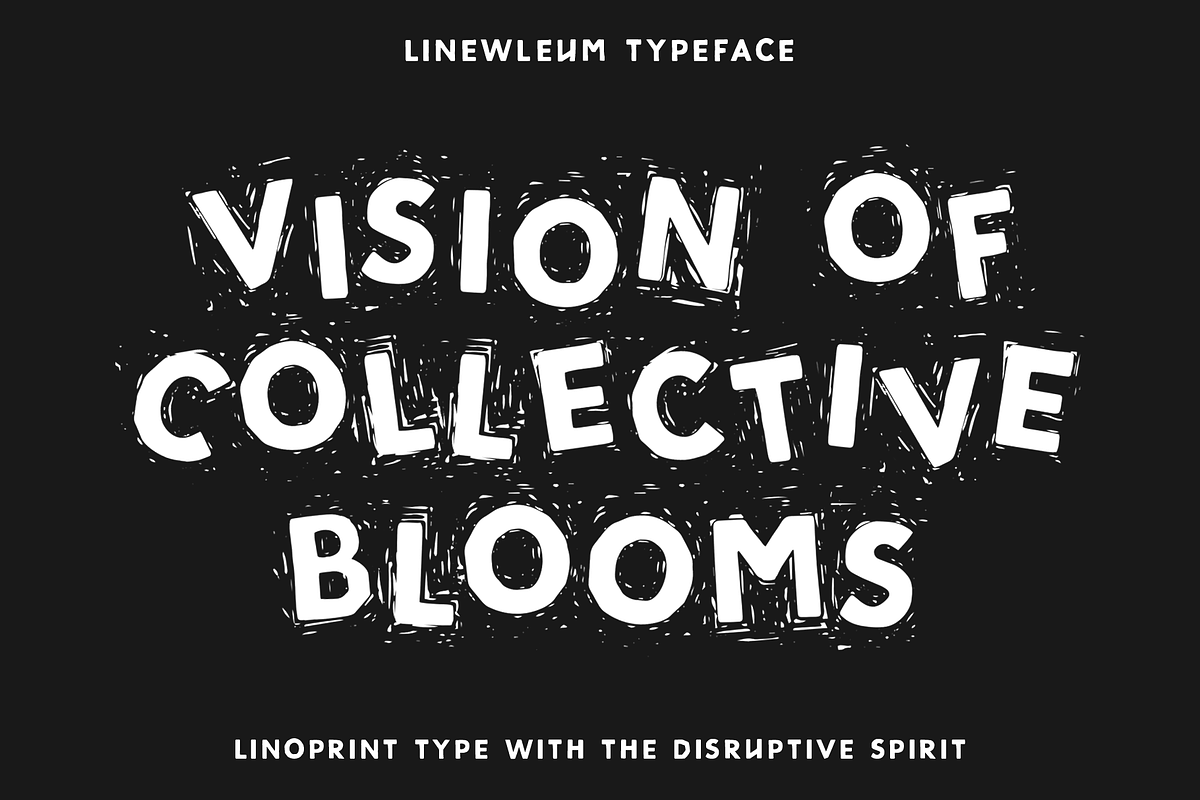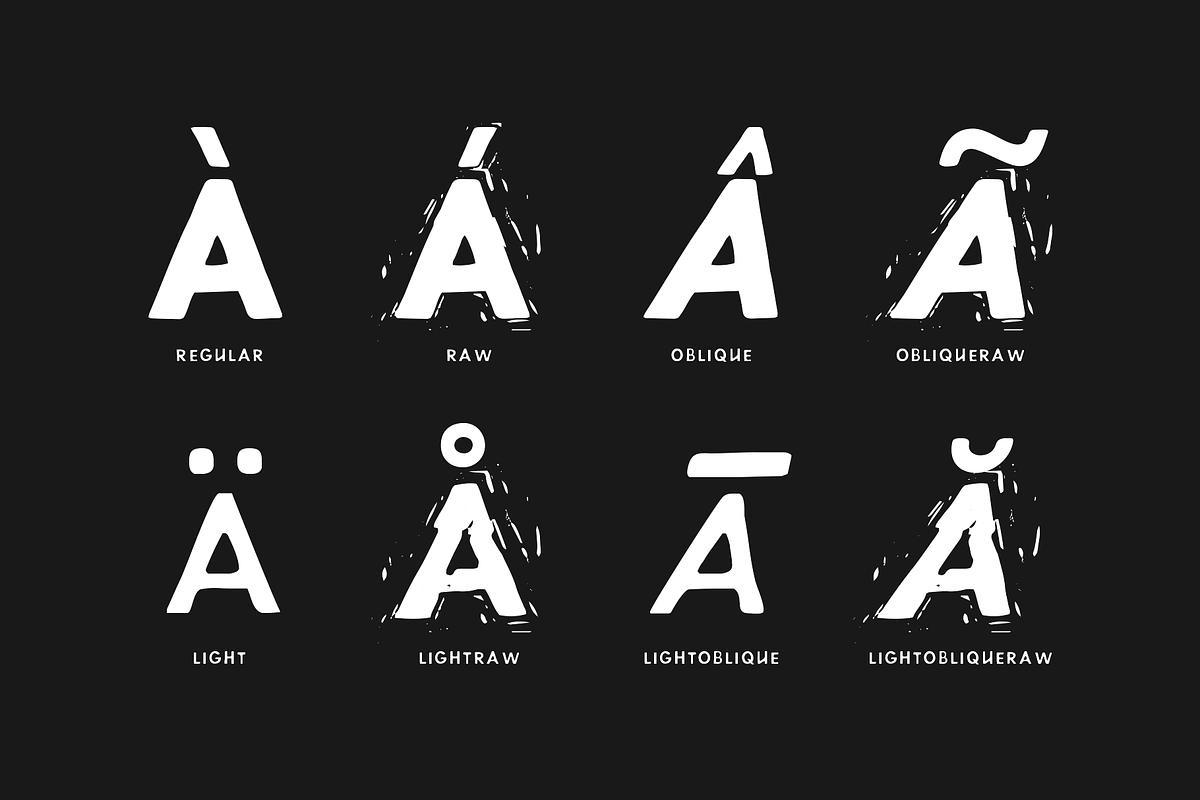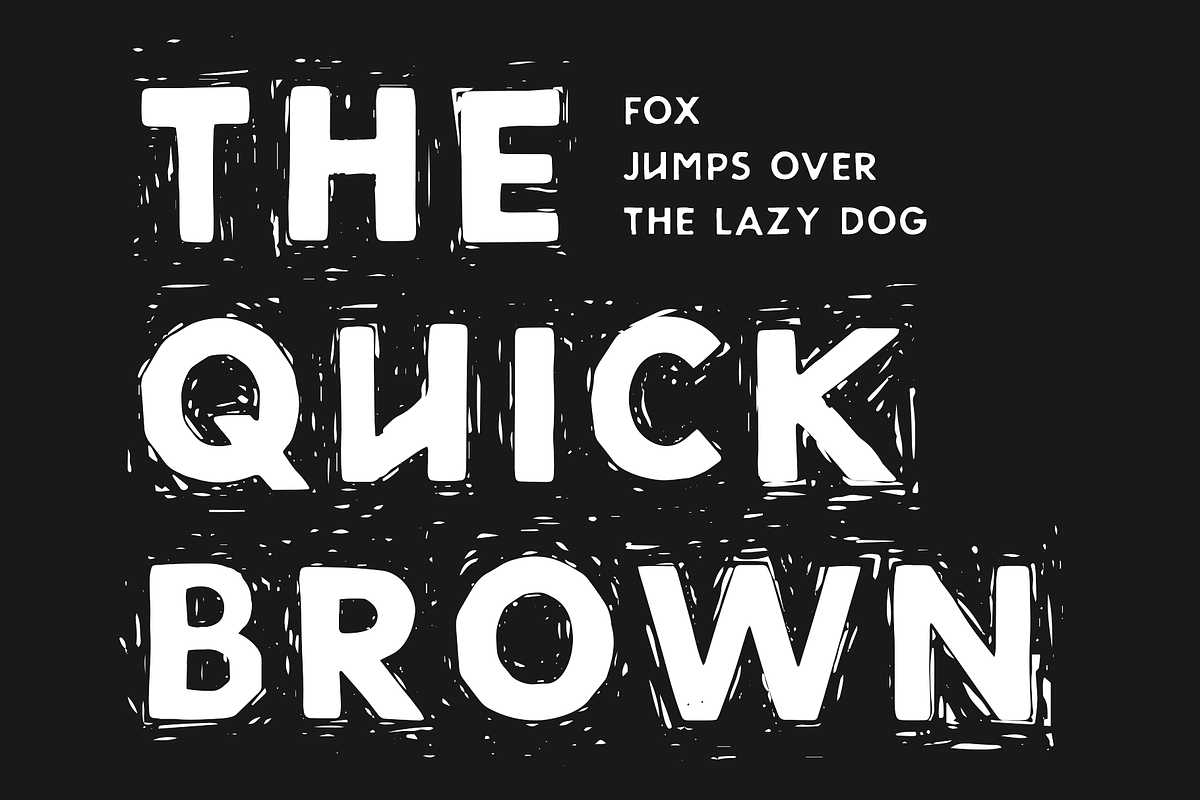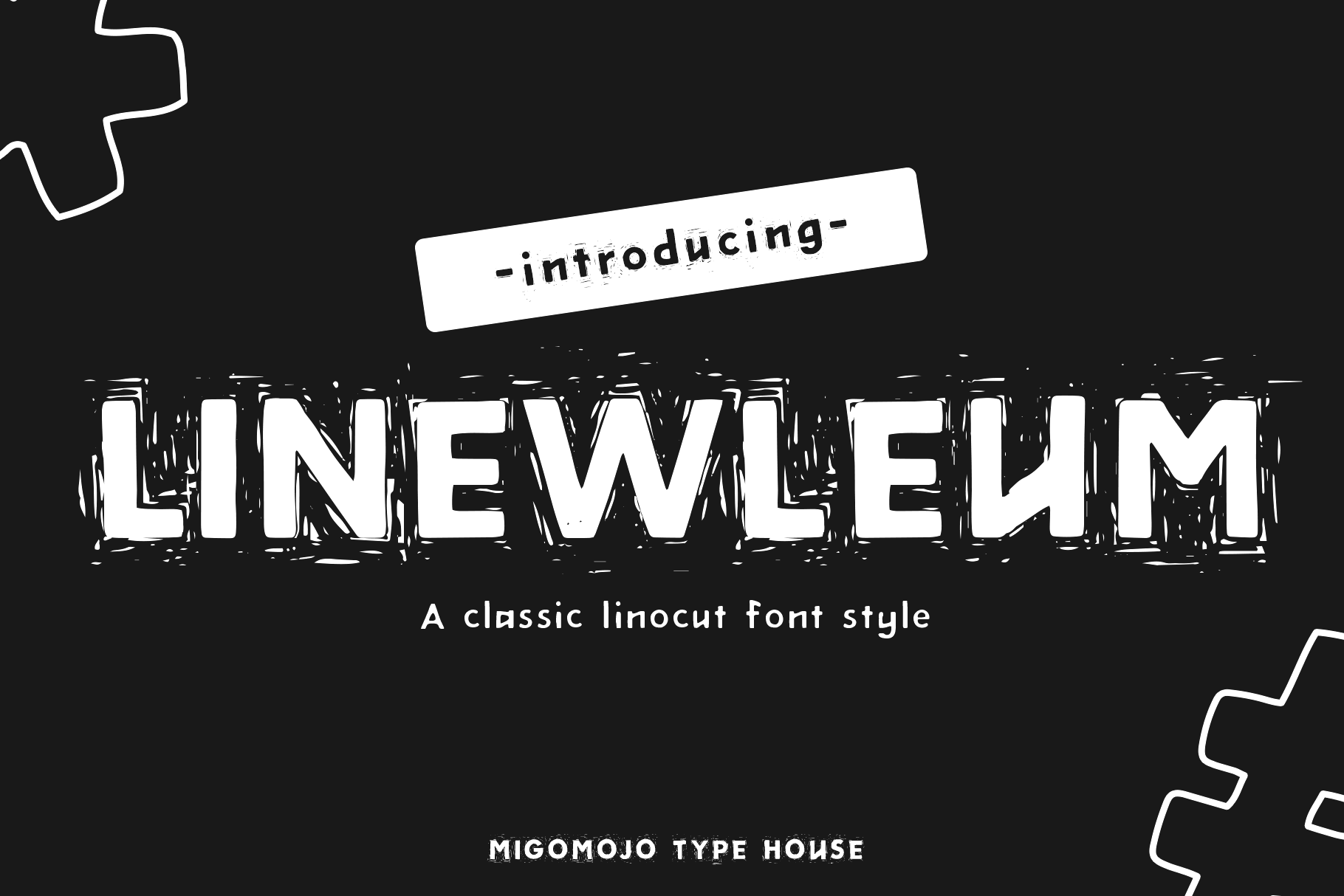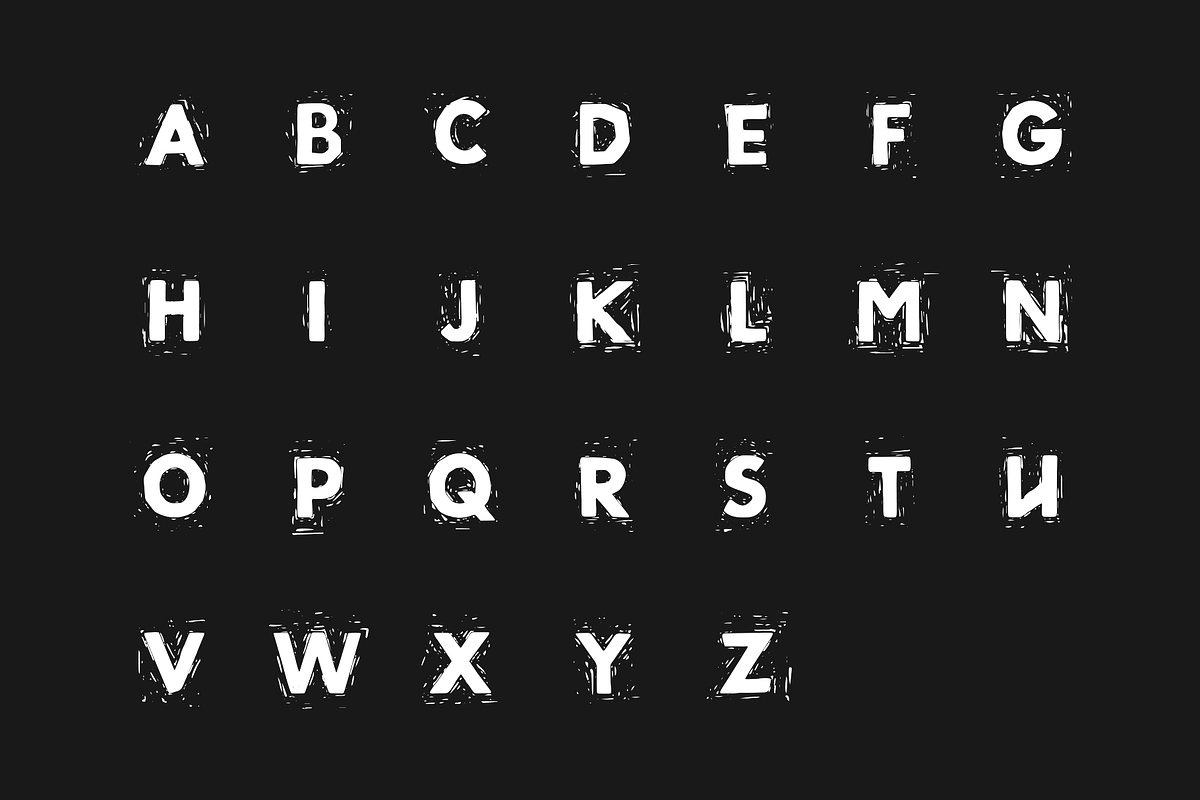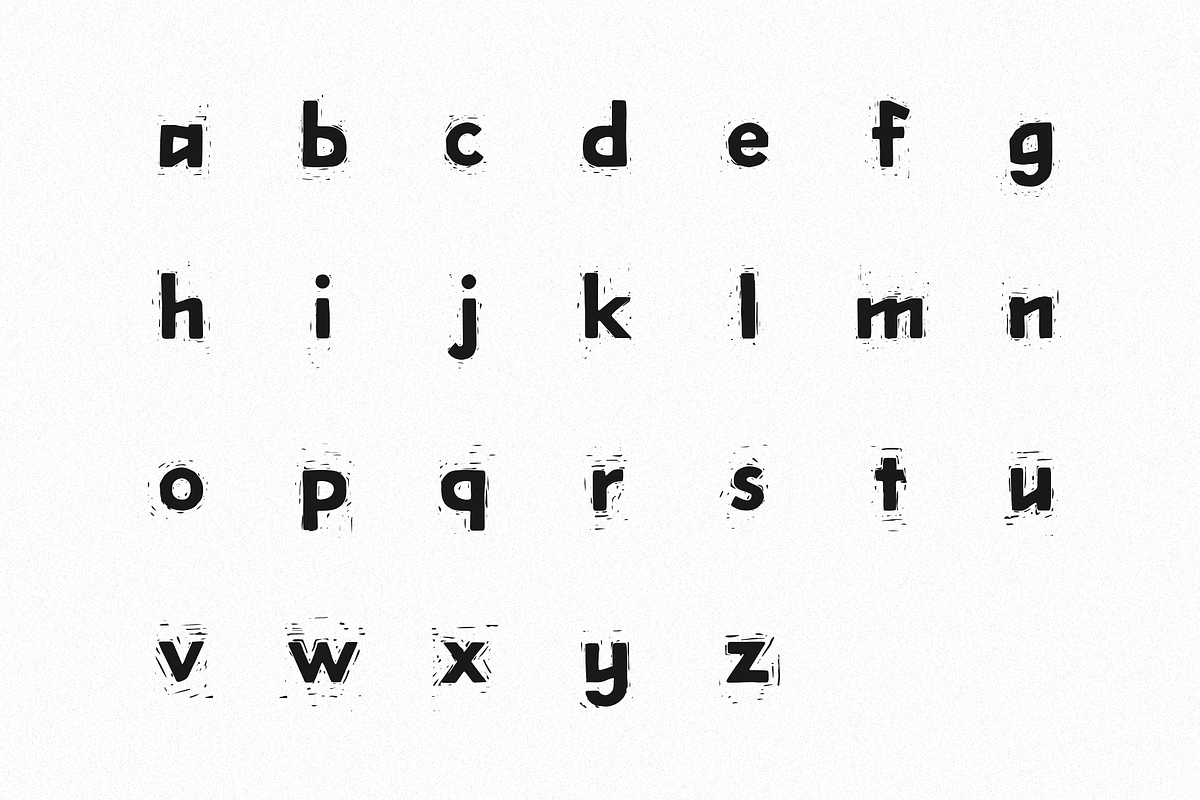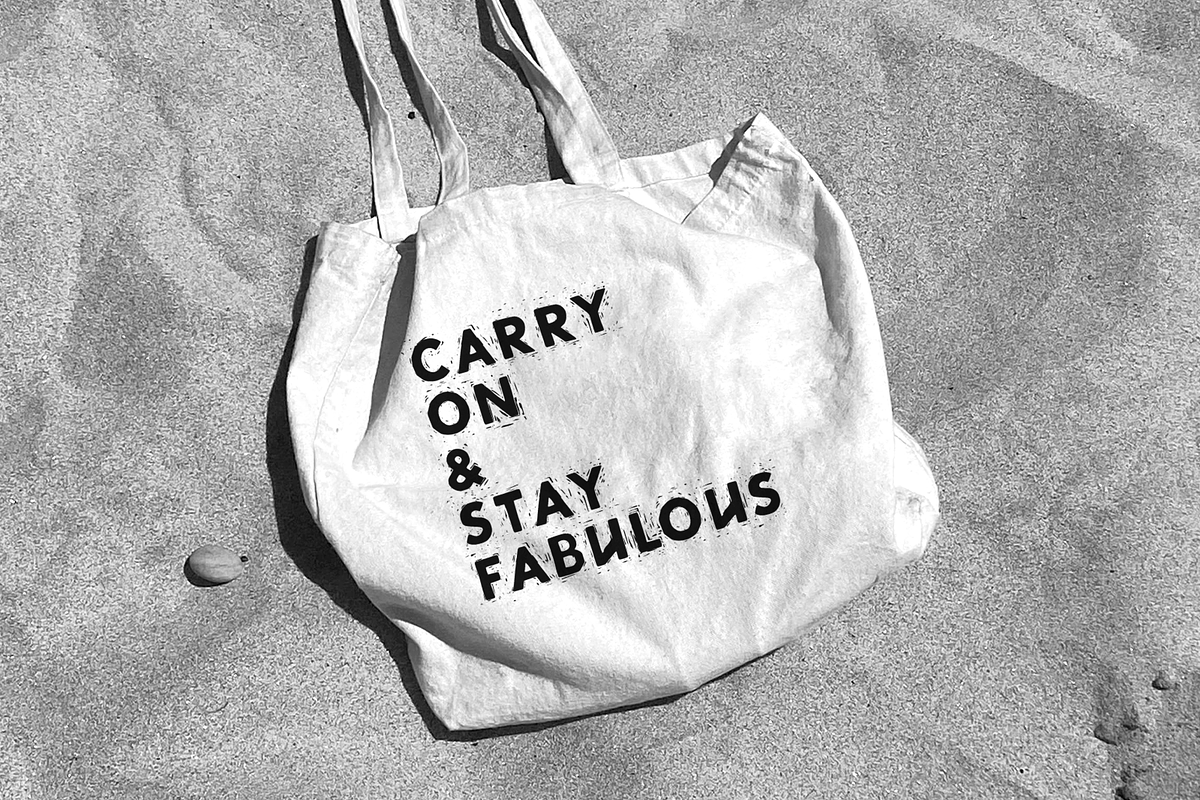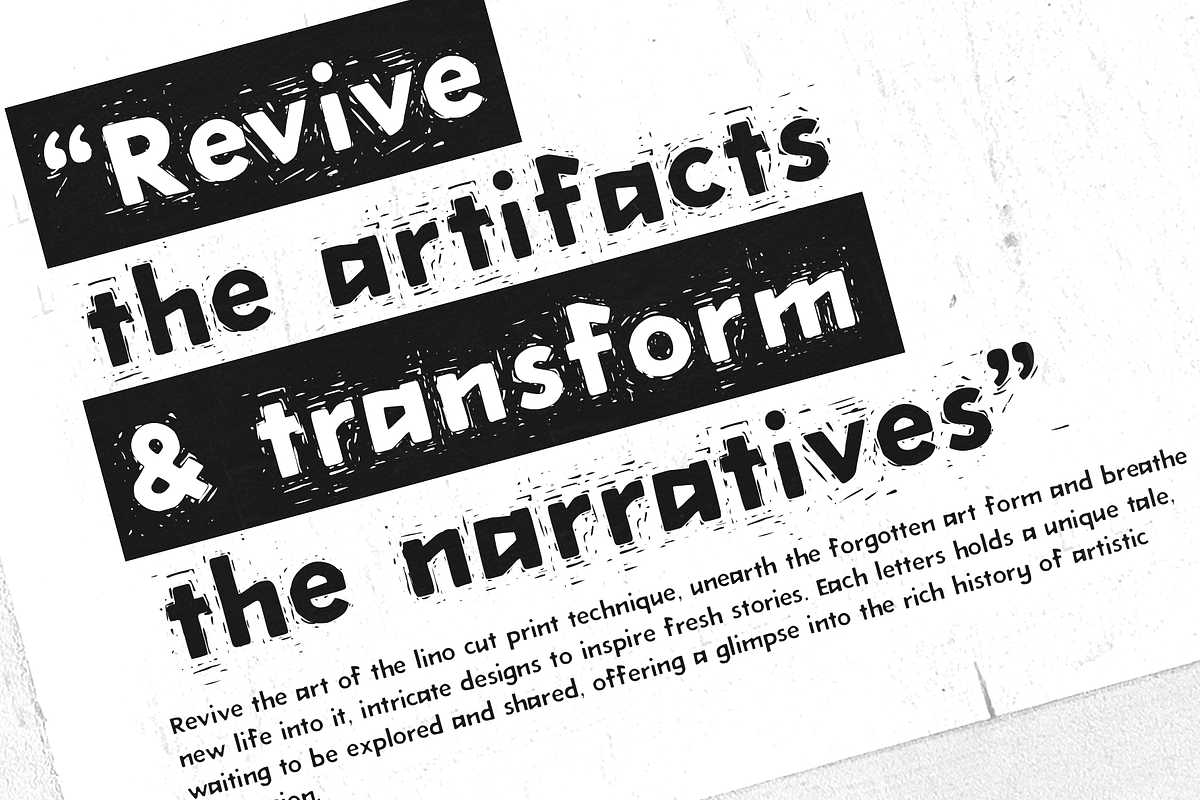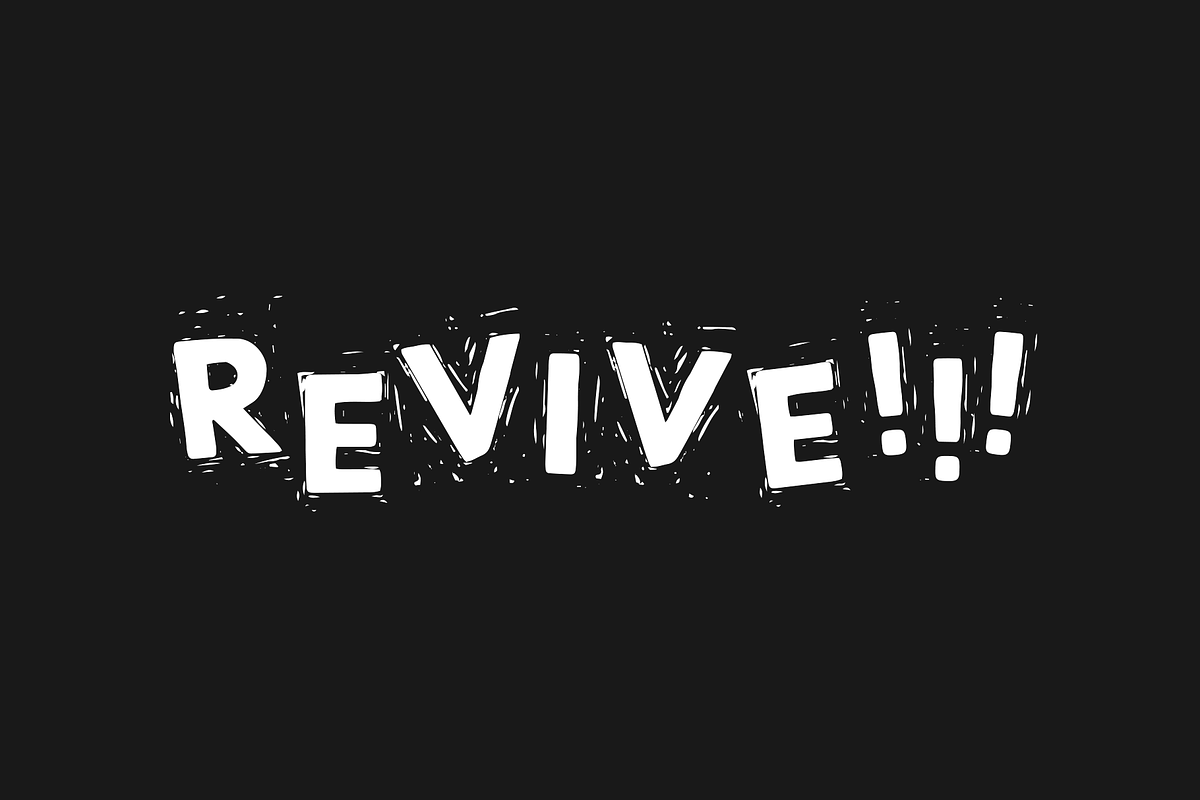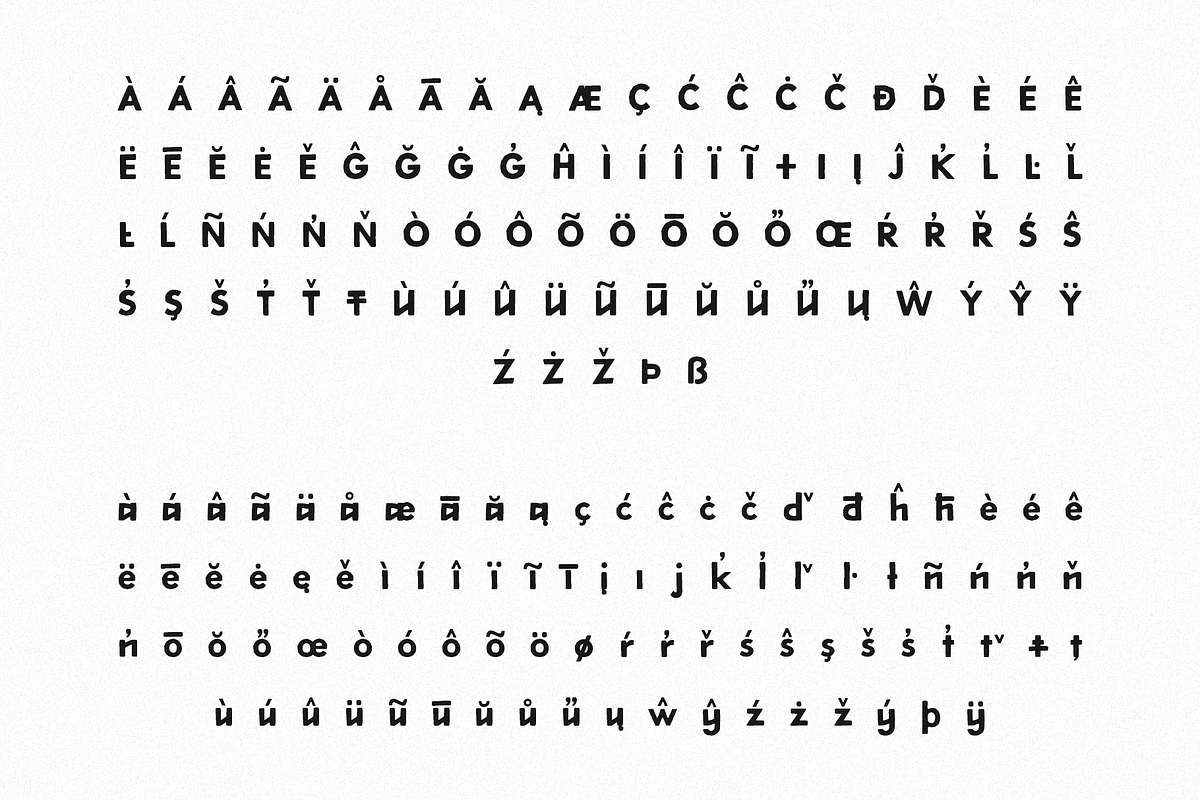
Linewleum Font Family
Linewleum is a handcrafted linoprint sans serif font featuring a rough and distressed texture. It captures the raw energy of linocut printing, resulting in a truly unique and expressive font that stands out from the crowd. Linewleum is available with 403 glyphs with 8 styles of typefaces. This font embraces linguistic diversity by providing multilingual support, making it accessible and adaptable for global audiences. May the force be with you! Cheers!
- Linewleum Regular
- Linewleum Raw
- Linewleum Oblique
- Linewleum Oblique Raw
- Linewleum Light
- Linewleum Light Raw
- Linewleum Light Oblique
- Linewleum Light Oblique Raw